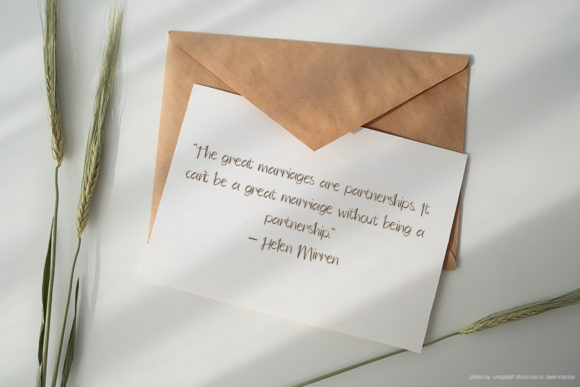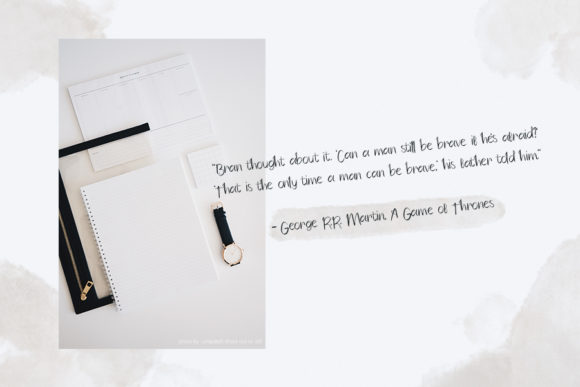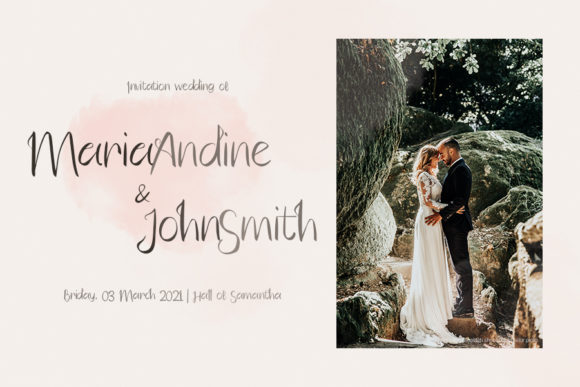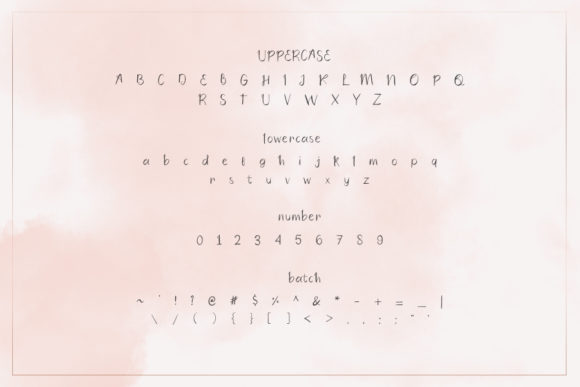
Brave Bridge Font: Elevate Your Designs with a Touch of Romance
In the world of typography, fonts play a crucial role in conveying the tone and aesthetic of a design. For those seeking to infuse their projects with a romantic and elegant feel, the Brave Bridge font is an exceptional choice. This smooth and beautifully lettered handwritten font has gained popularity among designers and crafters for its versatility and captivating charm.
The Essence of Brave Bridge Font
Brave Bridge font is a meticulously crafted script font that exudes a sense of sophistication and warmth. Its flowing lines and delicate curves make it an ideal selection for designs that require a personal touch. Whether you’re working on a greeting card, invitation, or headline, this font is guaranteed to add a romantic feel to your project.
Key Features of Brave Bridge Font
- Smooth and Elegant Lines: The font boasts smooth, flowing lines that give it a luxurious and refined appearance.
- Versatile Applications: From greeting cards and invitations to headlines and branding, Brave Bridge font can be used across a wide spectrum of design applications.
- Handwritten Charm: The font’s handwritten nature adds a personal and intimate feel to any design, making it perfect for projects that require a touch of warmth and personality.
- Easy to Read: Despite its elegant and cursive nature, Brave Bridge font remains highly legible, ensuring that your message is conveyed clearly and effectively.
Applications of Brave Bridge Font
The adaptability of Brave Bridge font makes it suitable for a variety of design projects. Here are some of the most popular applications:
- Greeting Cards: Add a romantic and personal touch to your greeting cards, making them stand out from the rest.
- Invitations: Whether it’s a wedding invitation or a birthday party invite, Brave Bridge font can help set the tone for a memorable event.
- Headlines and Titles: Use this font to create captivating headlines and titles that draw attention and add an element of elegance to your designs.
- Branding: Incorporate Brave Bridge font into your brand’s typography to convey a sense of sophistication and warmth.
- Stationery: Elevate your stationery designs, such as notebooks, journals, and planners, with the romantic and elegant feel of this font.
Tips for Using Brave Bridge Font Effectively
To make the most of Brave Bridge font, consider the following tips:
- Pair with Complementary Fonts: Combine Brave Bridge font with sans-serif fonts for a balanced and harmonious look.
- Adjust Letter Spacing: Experiment with letter spacing to achieve the desired level of elegance and readability.
- Use it Sparingly: While Brave Bridge font is beautiful, using it sparingly can make it more impactful. Consider using it for headlines or key phrases.
Brave Bridge font is a stunning script font that can add a touch of romance and elegance to any design project. Its versatility, legibility, and captivating charm make it an excellent choice for designers and crafters looking to create beautiful and memorable designs. By incorporating Brave Bridge font into your typography arsenal, you’ll be able to elevate your designs and convey your message with style and sophistication.